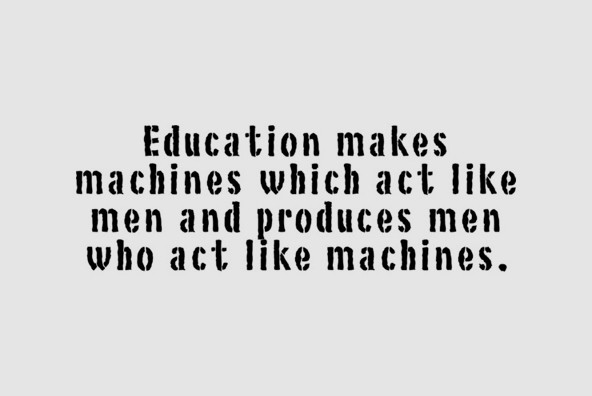
Zkumavka (named after a testtube) is one of the early typographical font-experiments of Atelier van Wageningen. Inspired by the vernecular typography shown on toilet-doors and waitingrooms on railwaystations in Eastern Europe. Made by Novo Typo....
Zkumavka (named after a testtube) is one of the early typographical font-experiments of Atelier van Wageningen. Inspired by the vernecular typography shown on toilet-doors and waitingrooms on railwaystations in Eastern Europe. Made by Novo Typo. Designers from Amsterdam, The Netherlands.